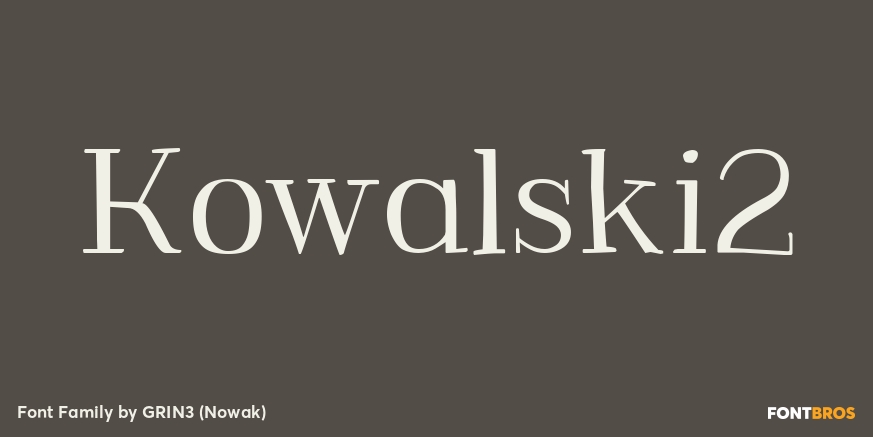
Kowalski2
About Kowalski2
Kowalski2 is a decorative, serif, hand-drawn font. It can be used for invitations, greeting cards, posters, advertising, weddings, books, menus etc. The inspiration came from the beautiful font Desire designed by Charles Borges de Oliveira. Kowalski2…